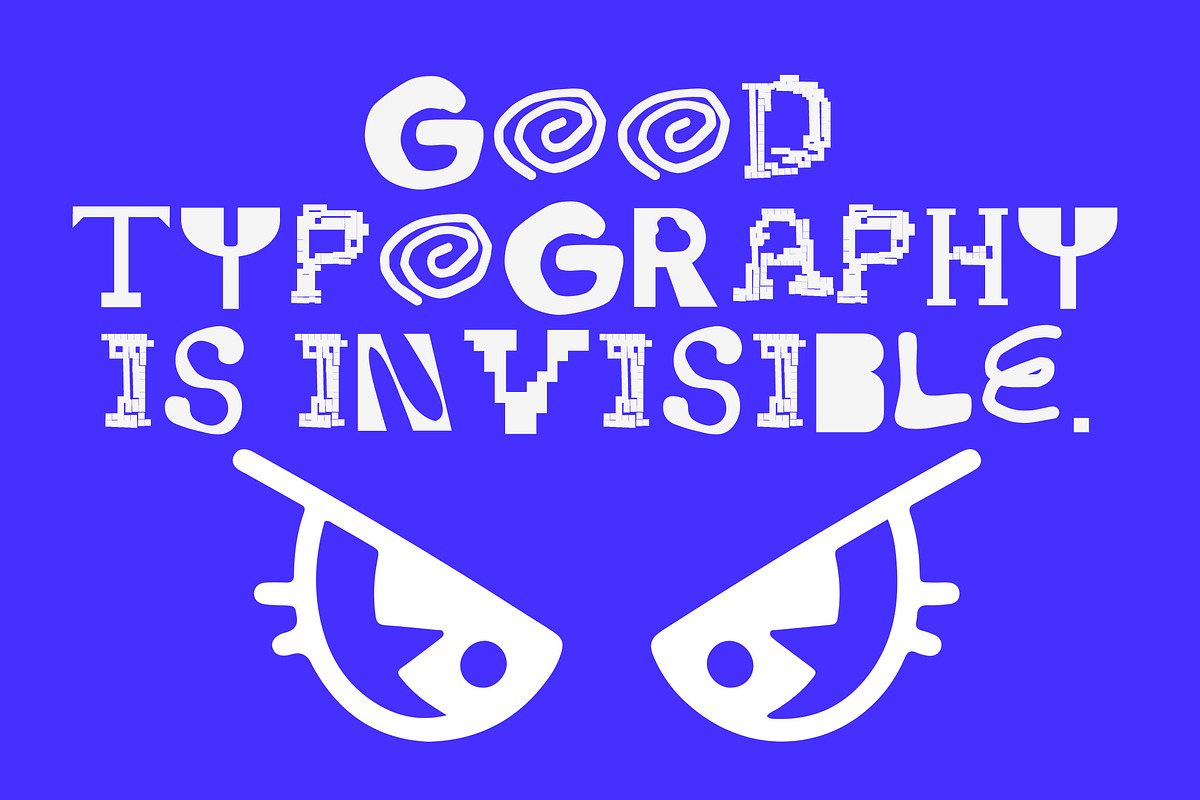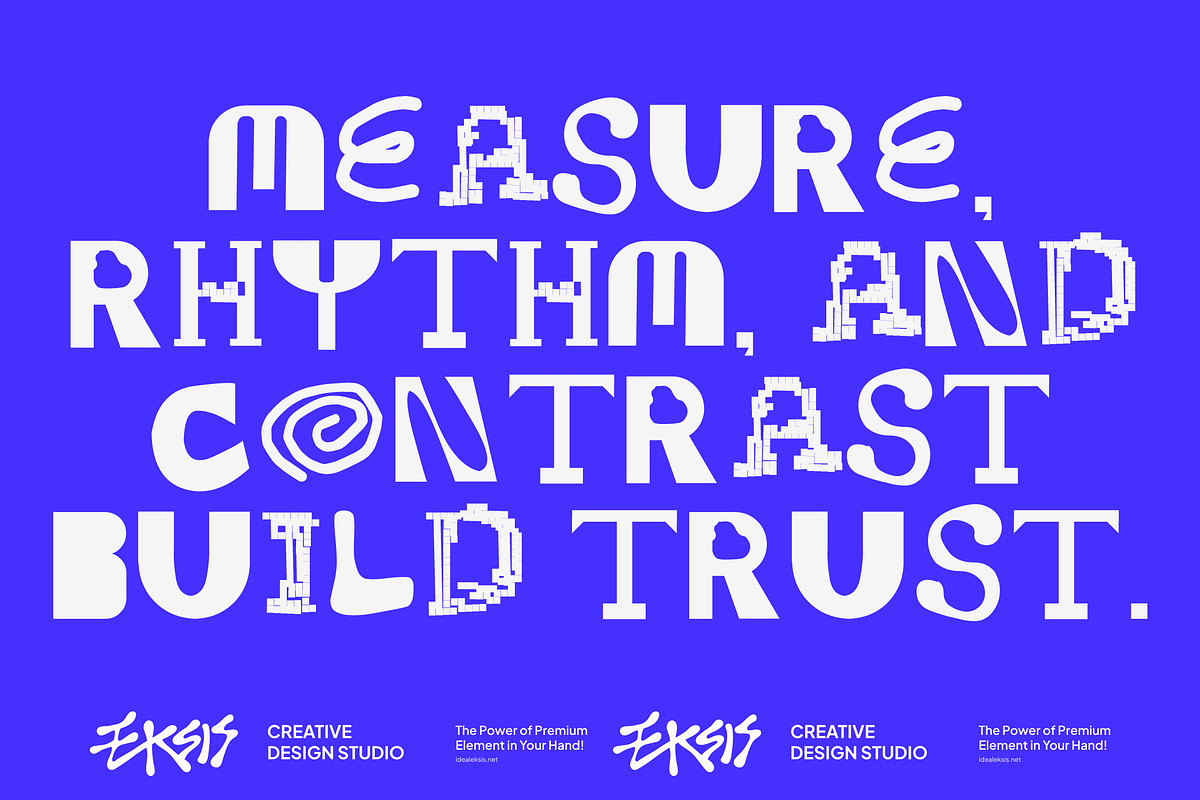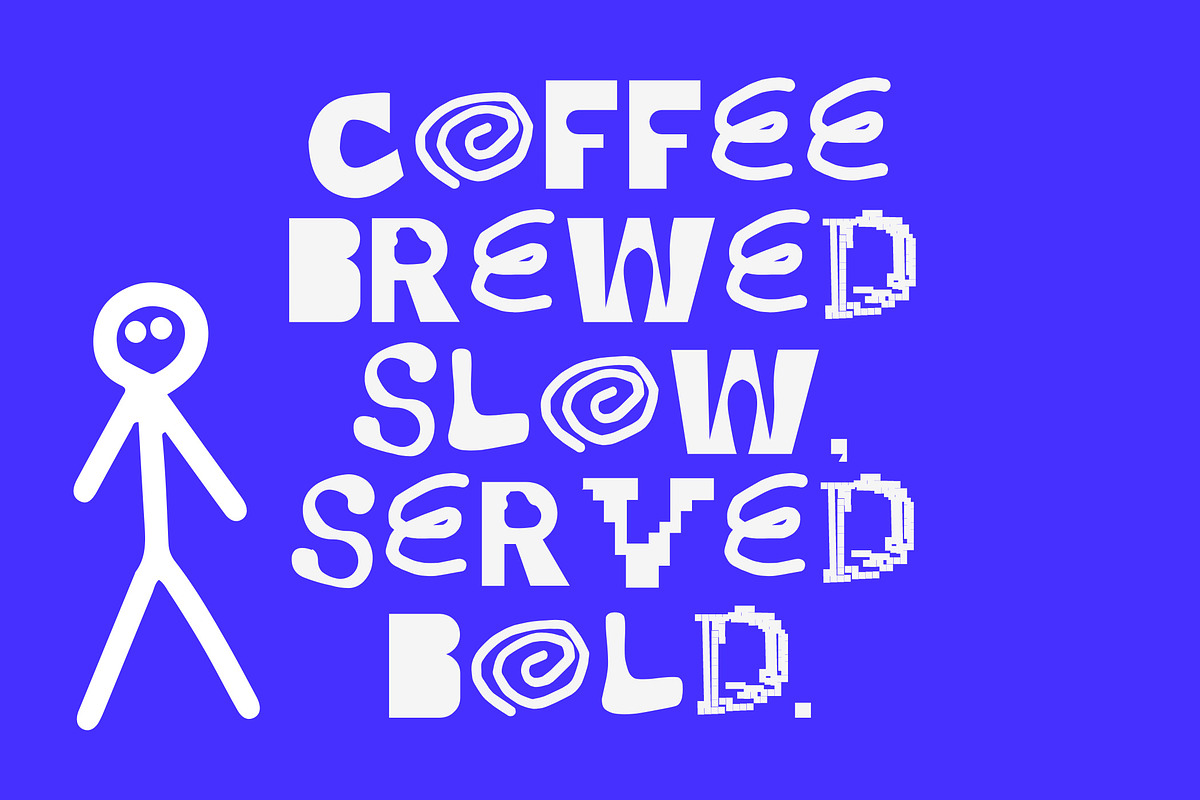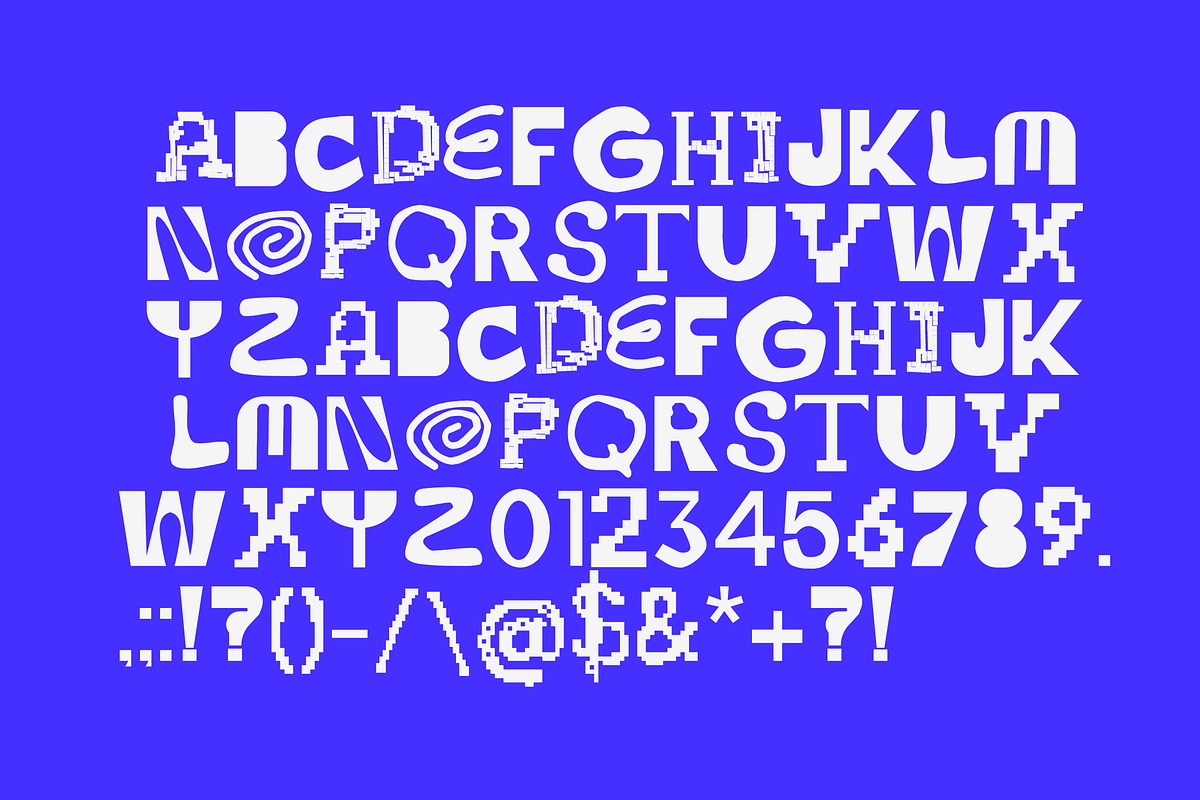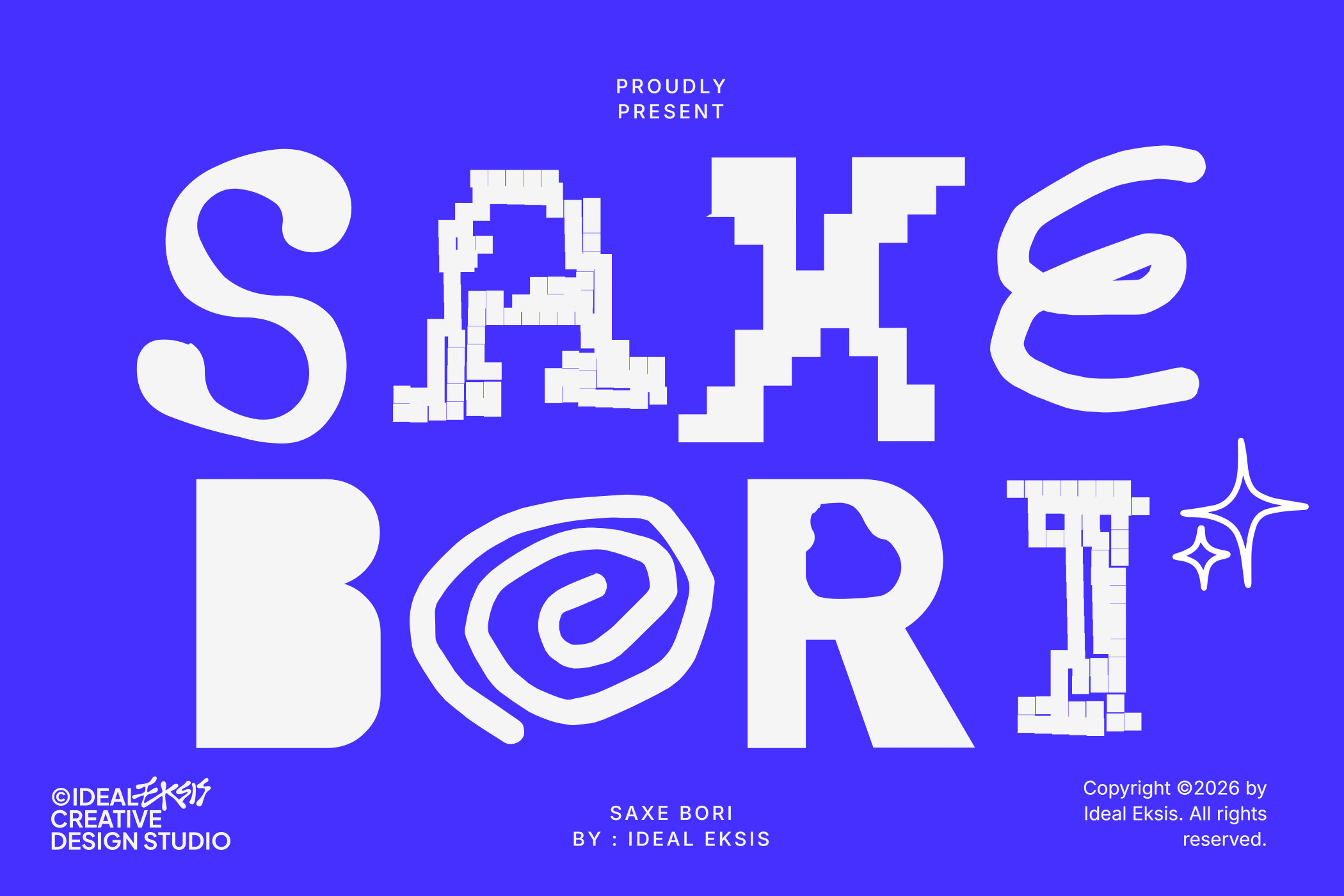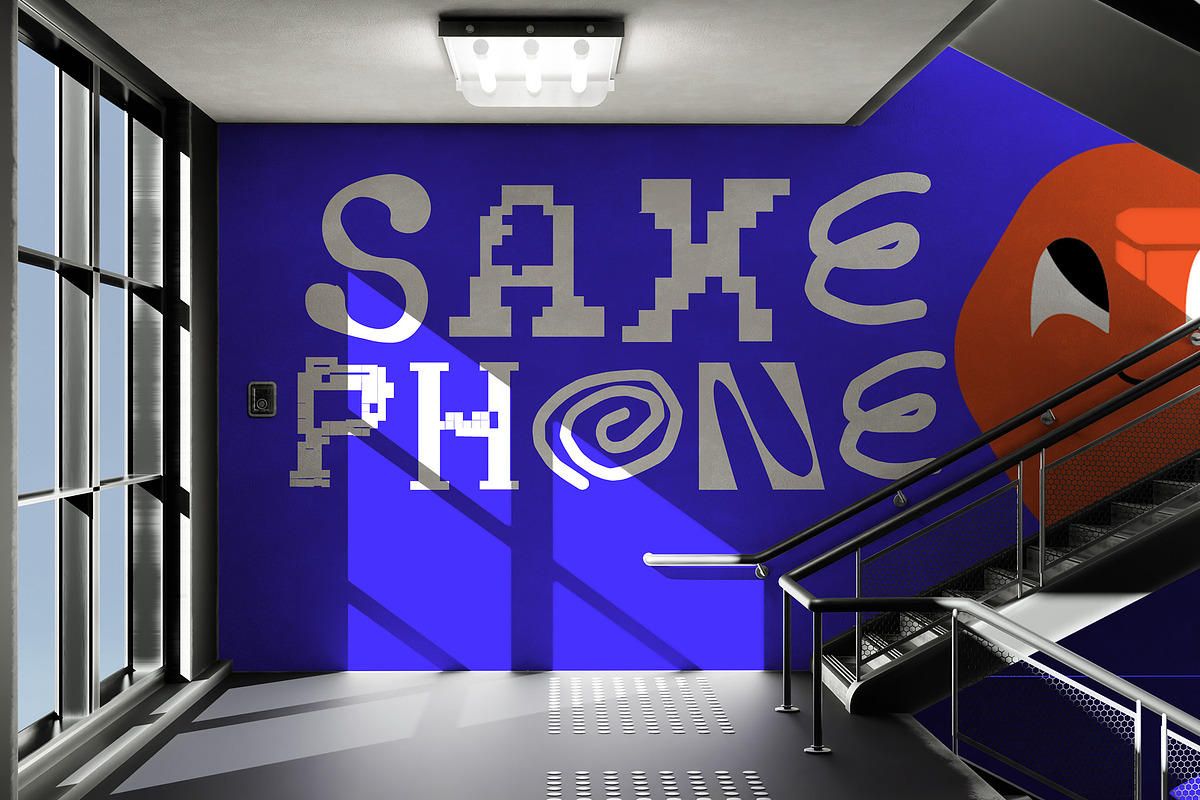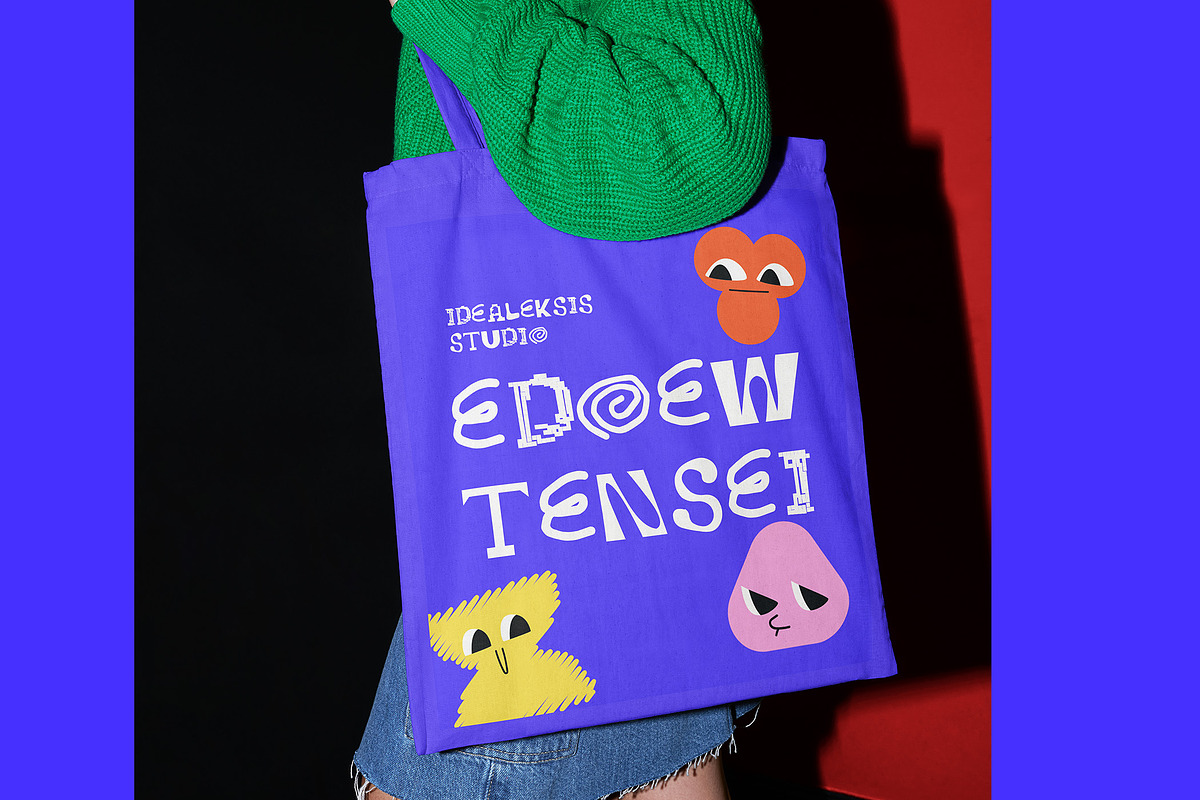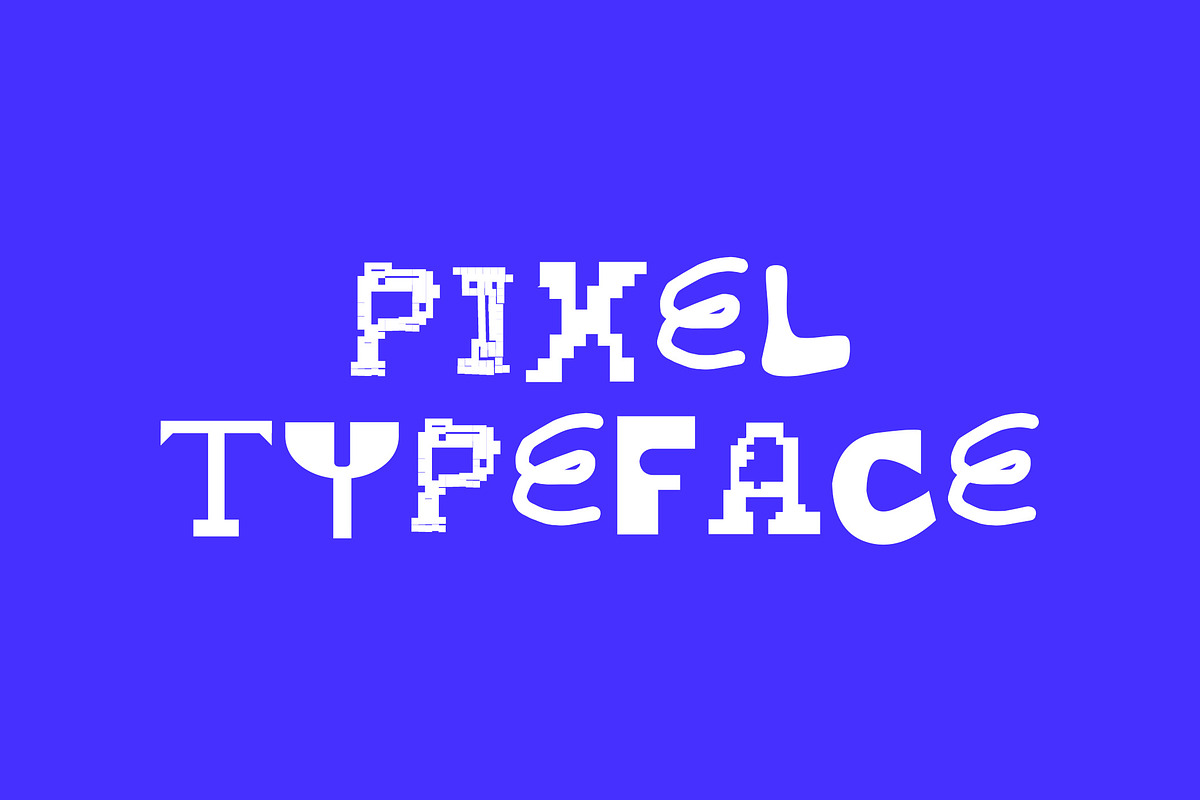
Saxe Bori Typeface
An eclectic and experimental display typeface that merges contrasting visual styles into a cohesive, chaotic harmony. Each letterform presents a unique structural identity: from pixelated, blocky steps and grid-like constructions to fluid, hand-drawn spirals and ultra-bold organic curves. This high-contrast, maximalist design is perfect for avant-garde editorial layouts, poster designs, branding, and contemporary digital art seeking a bold, rebellious aesthetic.